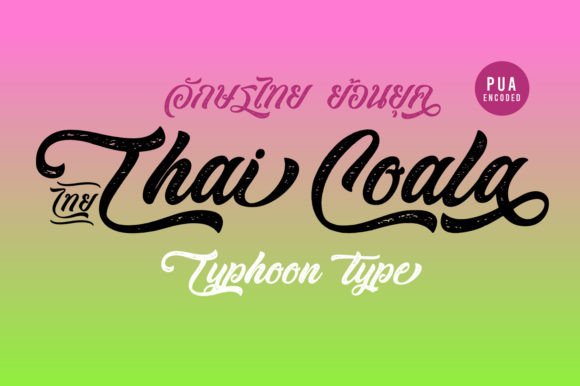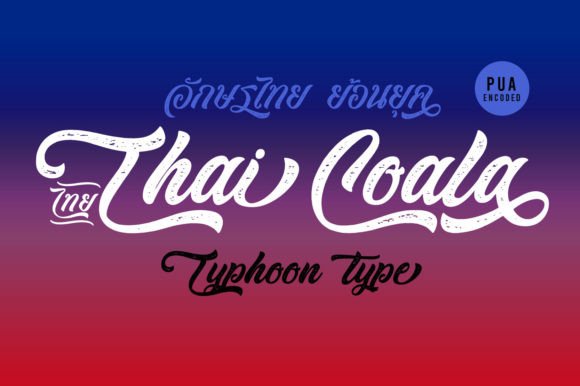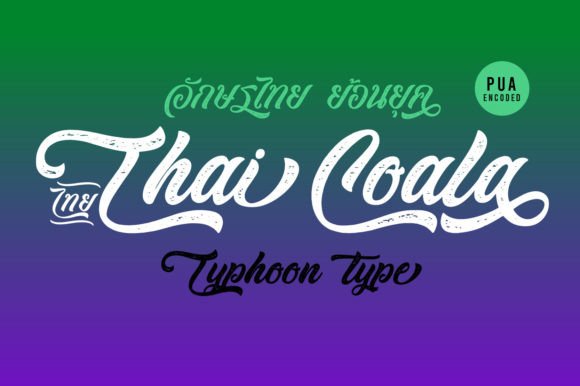
Thai Coala Font
About Thai Coala Font
Thai Coala (including Thai Glyphs) is a cute and casual handwritten font with an incredibly friendly feel. It’s perfect for logos, branding, social media posts, greeting cards, and much more! This font is PUA encoded, which means you can access all of the glyphs and swashes with ease!